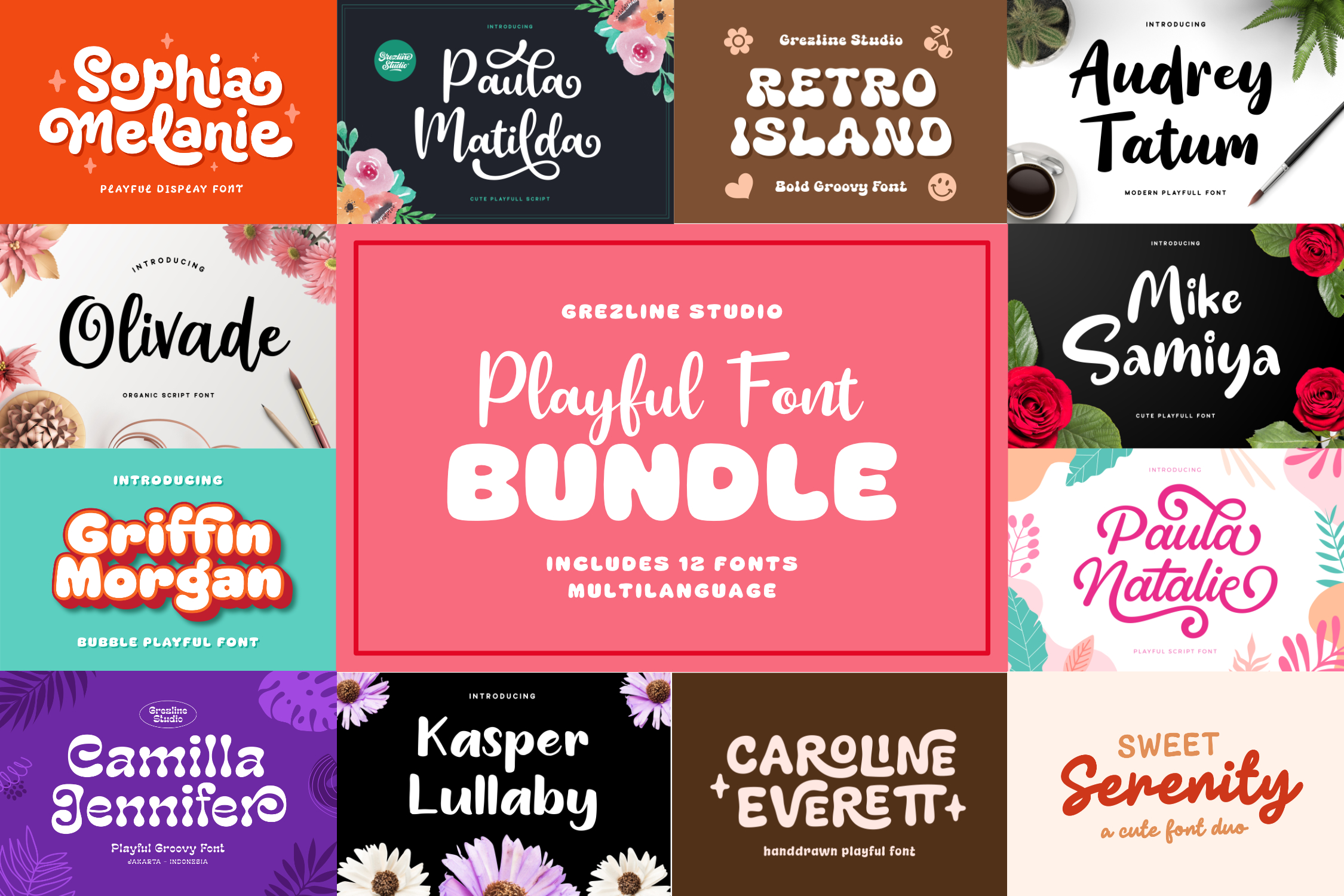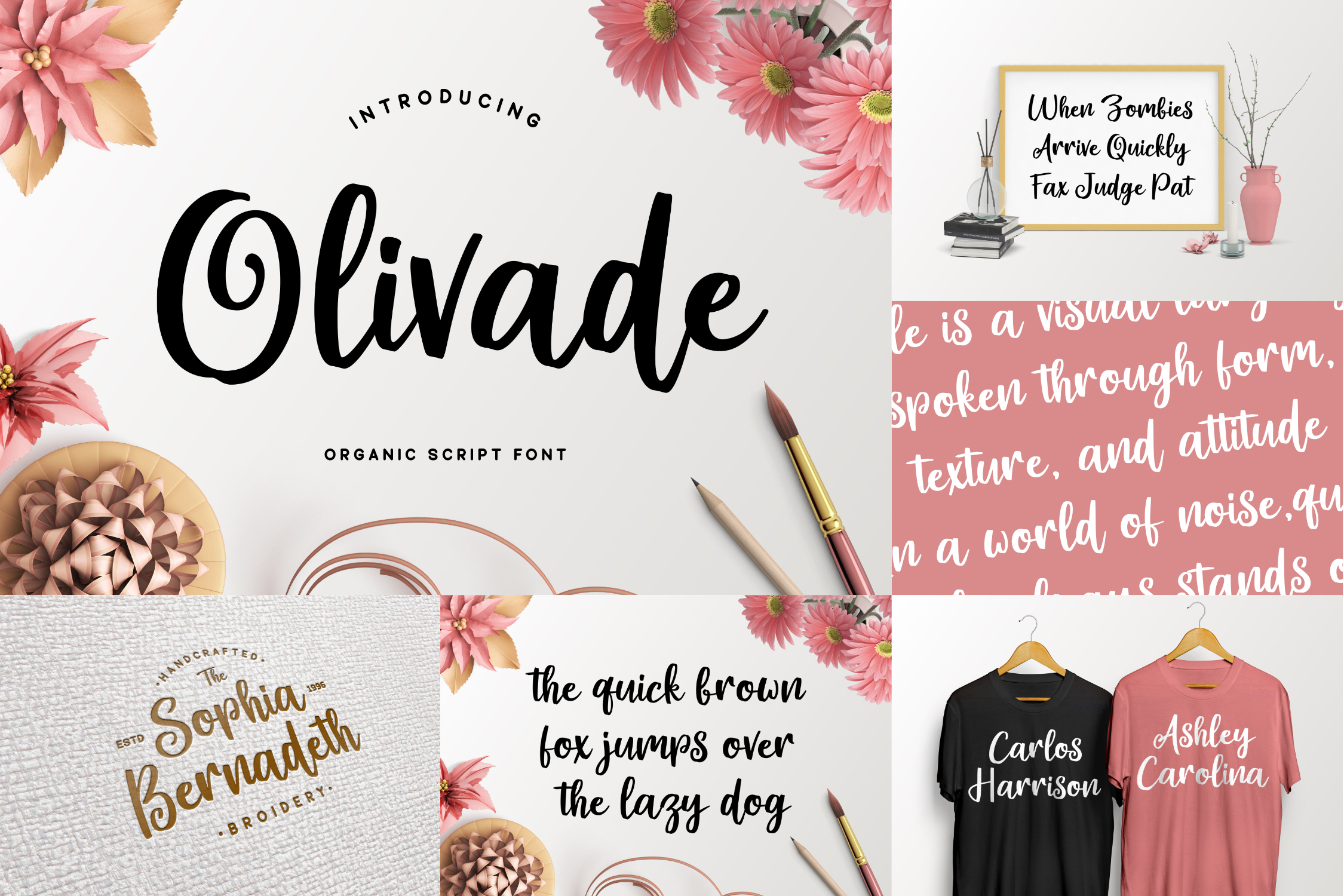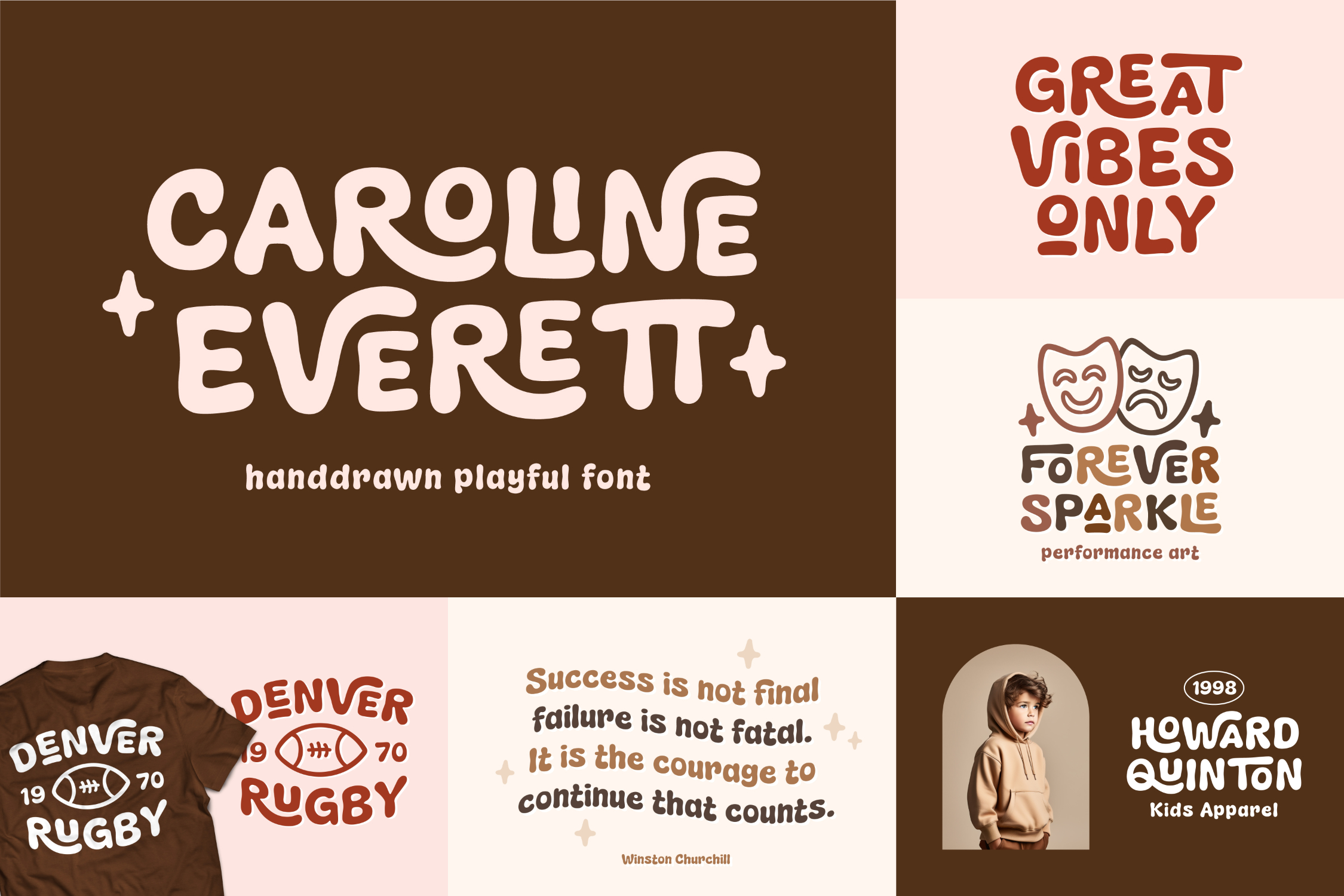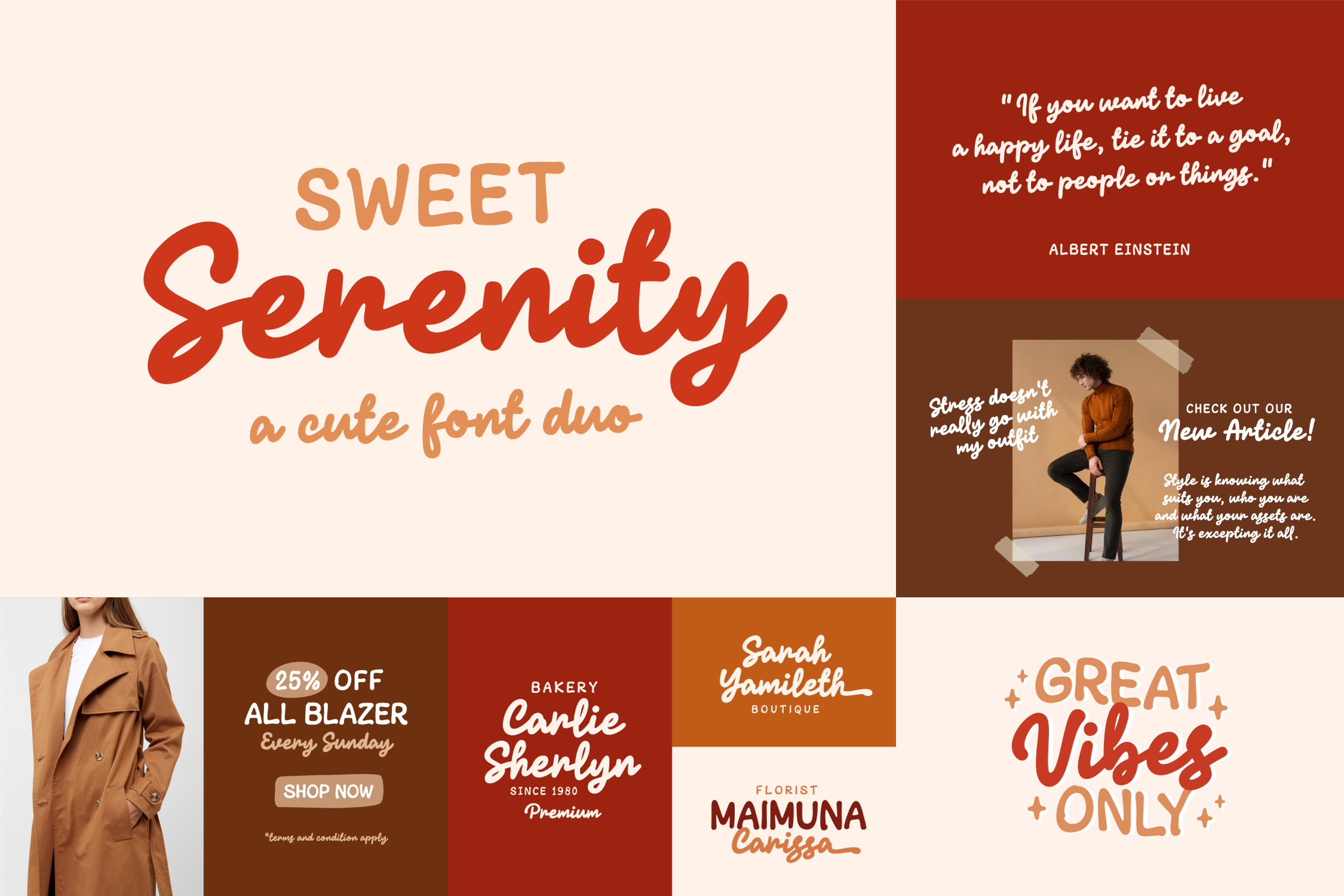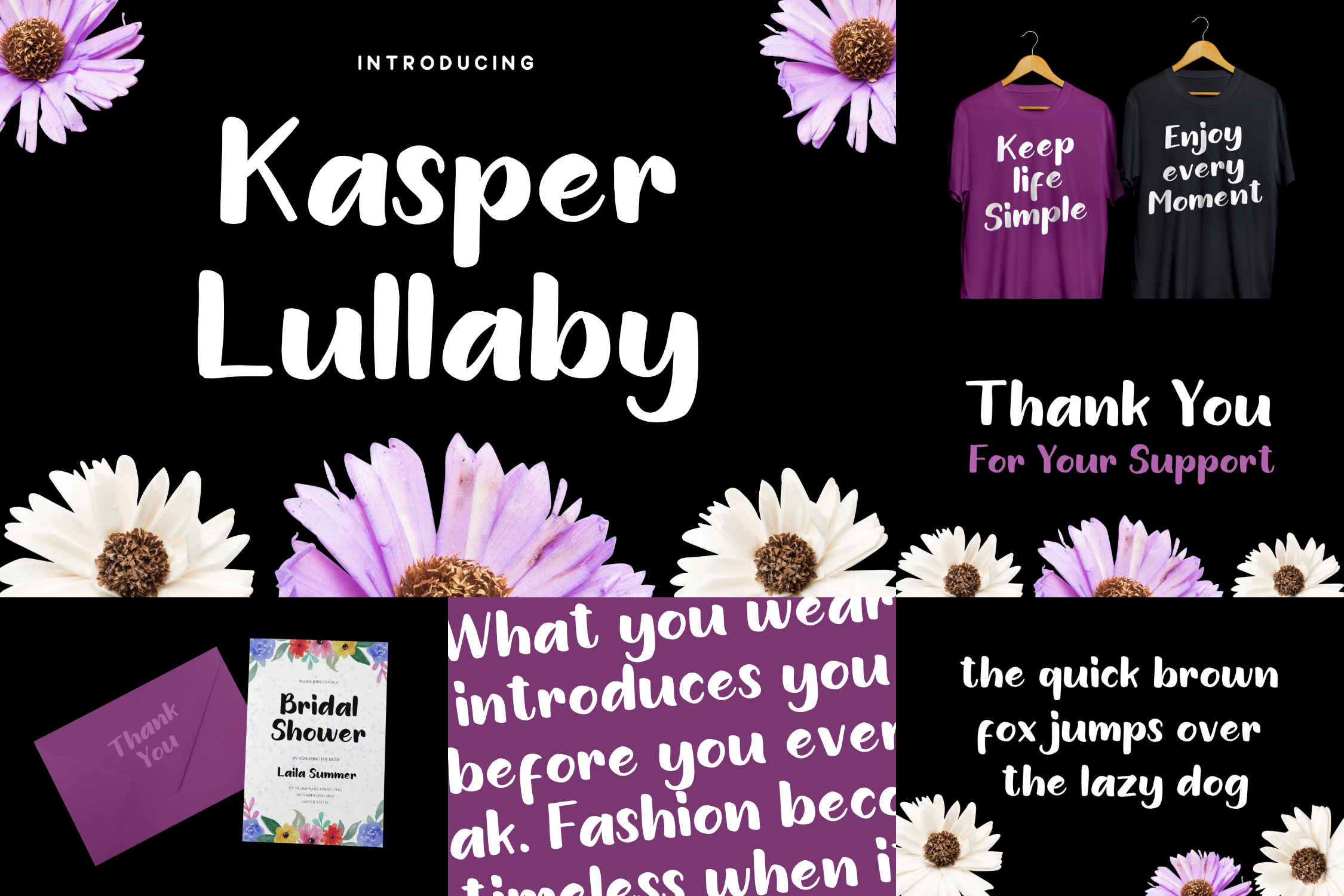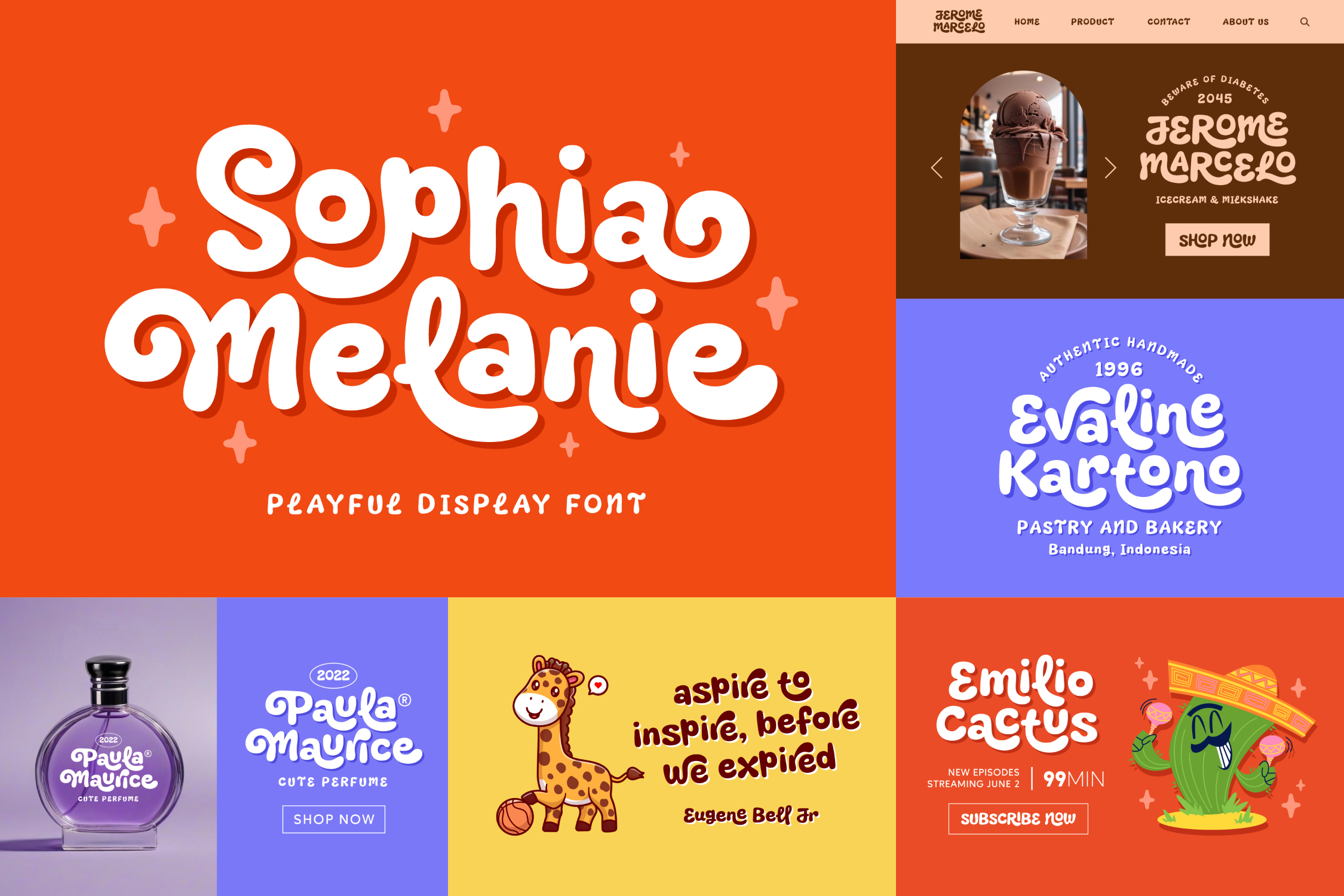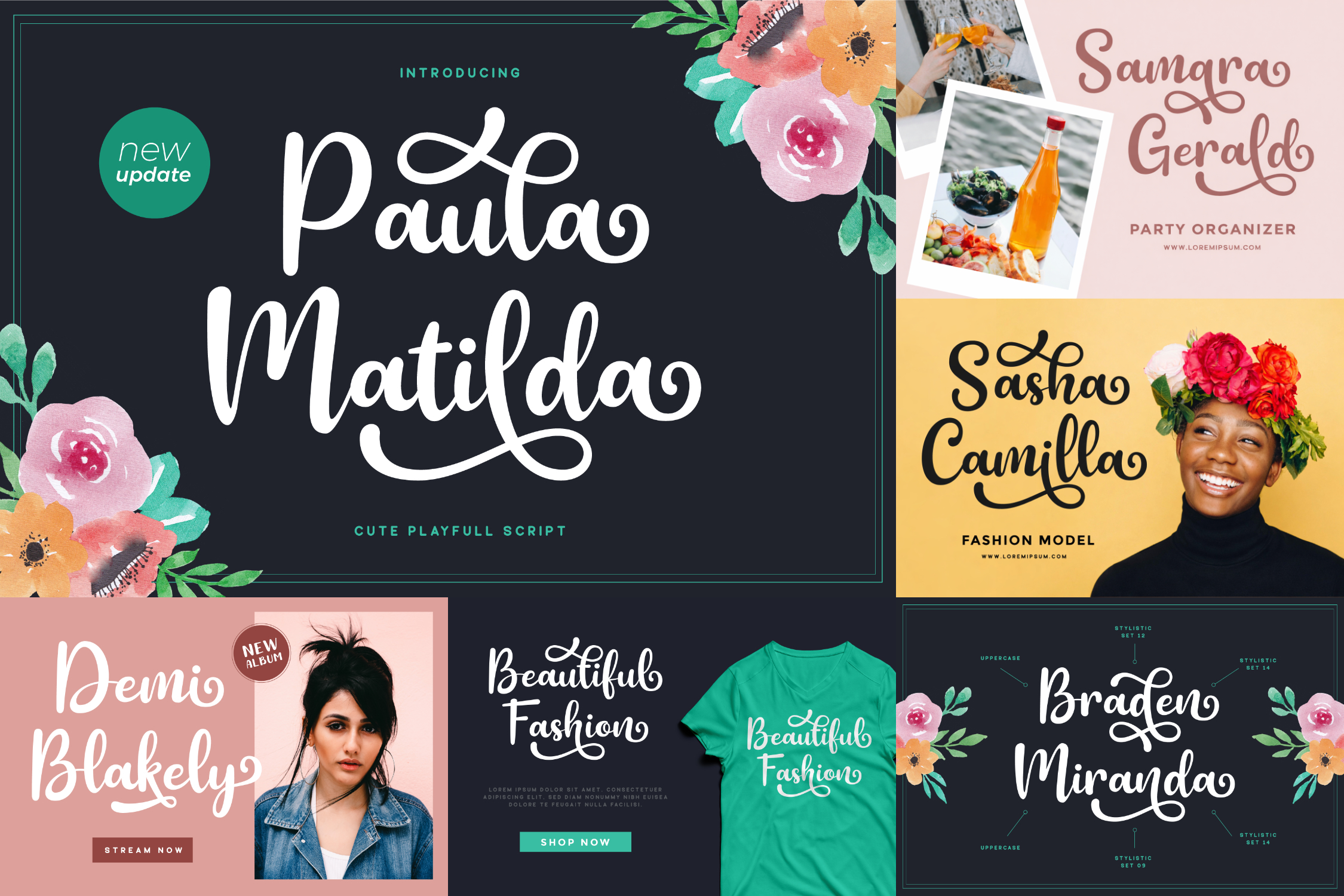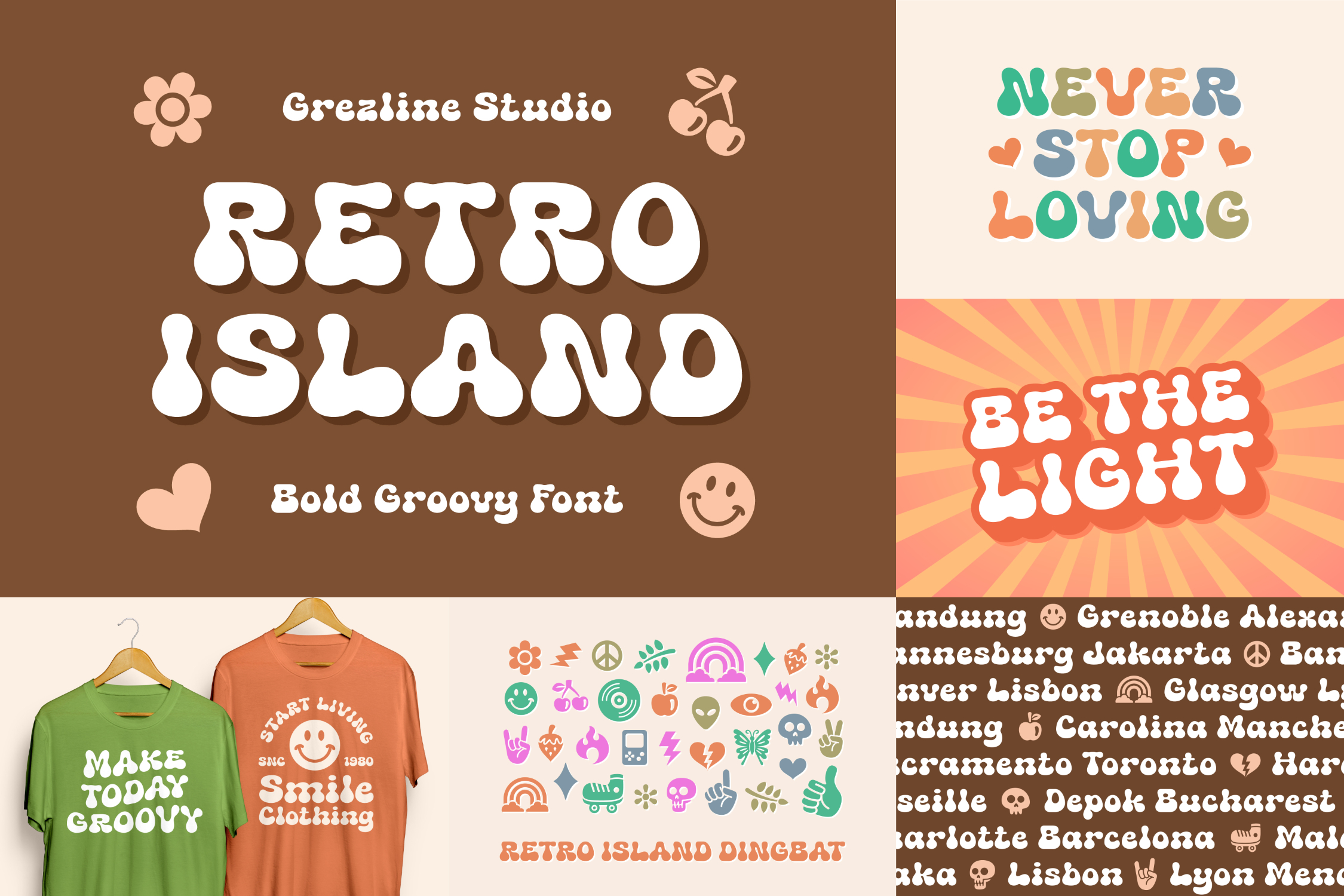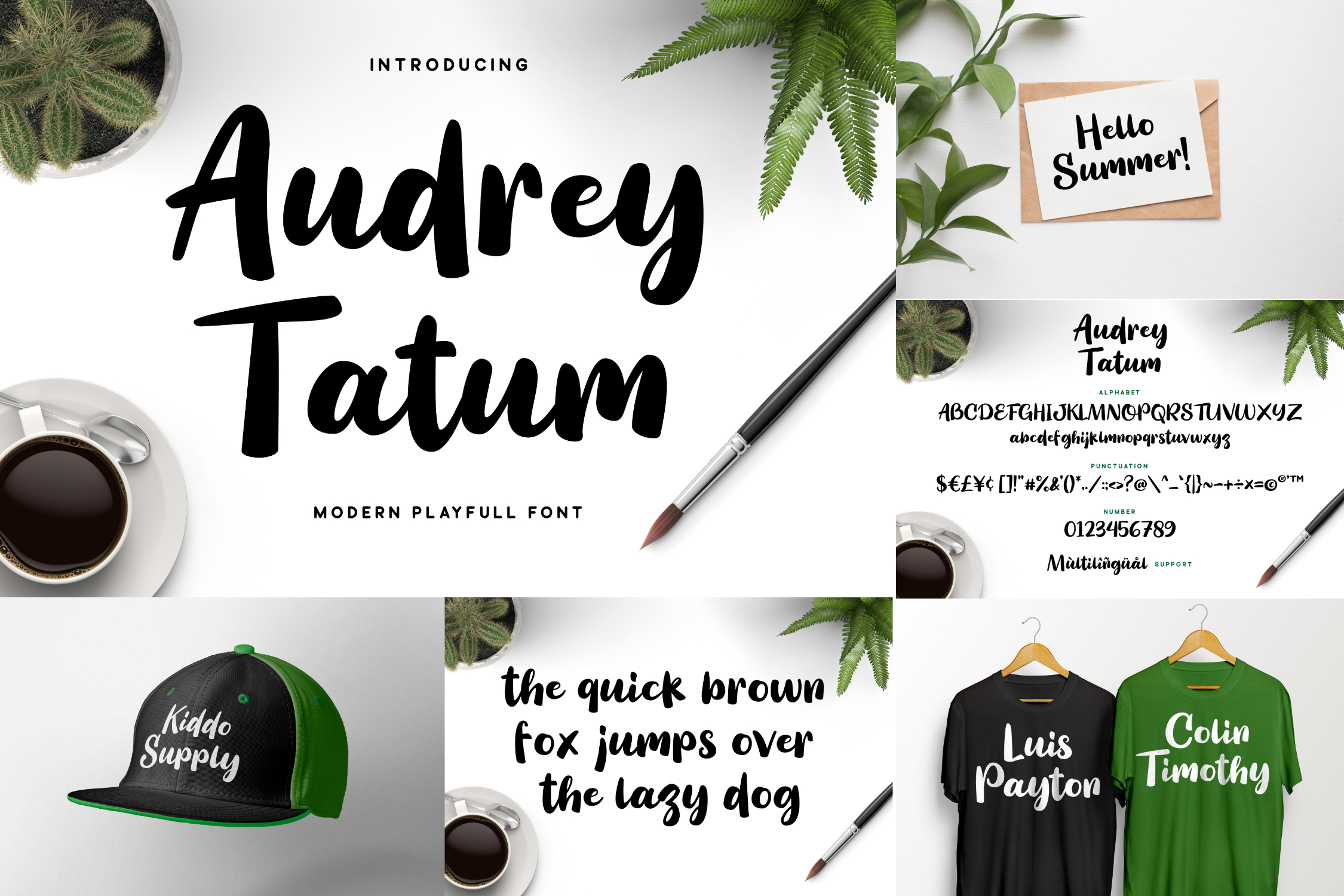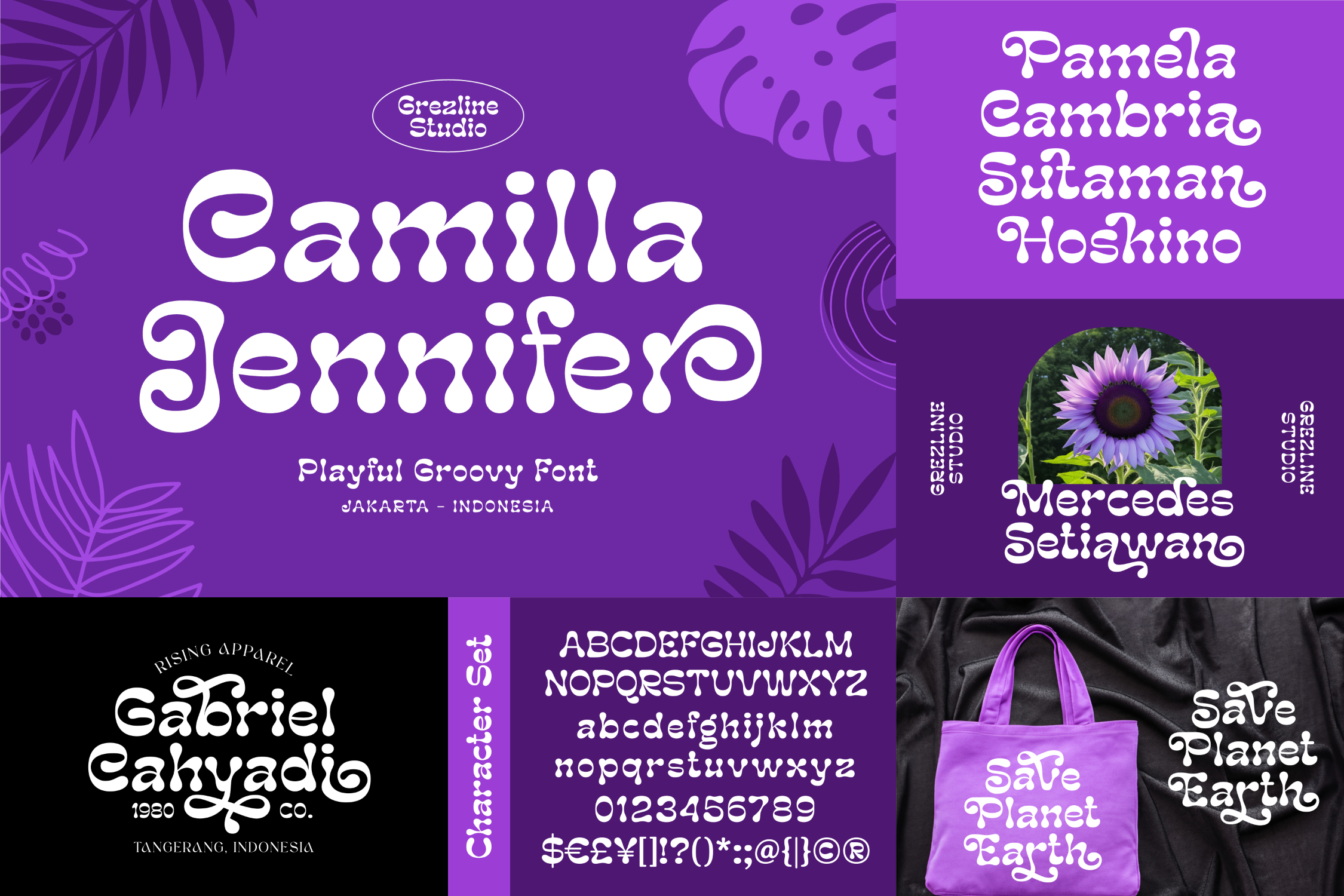
Introducing the Playful Font Bundle Vol. 1 – a collection of 12 carefully crafted fonts made to add charm and character to your creative work.
This bundle combines bold, bubbly styles with smooth, expressive scripts, giving you the flexibility to create standout branding, eye-catching social media posts, packaging, invitations, and more. Each font is designed to feel fun yet polished, making your projects look professional without losing their playful spirit.
Complete with multilingual support, this bundle is perfect for designers, business owners, and content creators who want typography that feels lively, modern, and full of personality.
Fonts Included:
1. Sophia Melanie https://grezlinestudio.com/product/sophia-melanie-playful-font/
2. Paula Matilda https://grezlinestudio.com/product/paula-matilda-font/
3. Retro Island https://grezlinestudio.com/product/retro-island-bold-groovy-font/
4. Audrey Tatum https://grezlinestudio.com/product/audrey-tatum-font/
5. Griffin Morgan https://grezlinestudio.com/product/griffin-morgan-bubble-playful-font/
6. Mike Samiya https://grezlinestudio.com/product/mike-samiya-font/
7. Caroline Everett https://grezlinestudio.com/product/caroline-everett-handdrawn-playful-font/
8. Olivade https://grezlinestudio.com/product/olivade-font/
9. Paula Natalie https://grezlinestudio.com/product/paula-matilda-font/
10. Camilla Jennifer https://grezlinestudio.com/product/camilla-jennifer-playful-groovy-font/
11. Sweet Serenity https://grezlinestudio.com/product/sweet-serenity-cute-font-duo/
12. Kasper Lullaby https://grezlinestudio.com/product/kasper-lullaby-font/
Playful Font Bundle Vol. 1